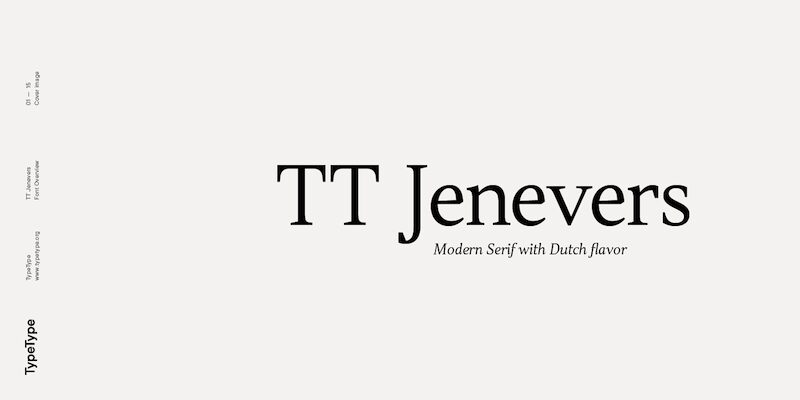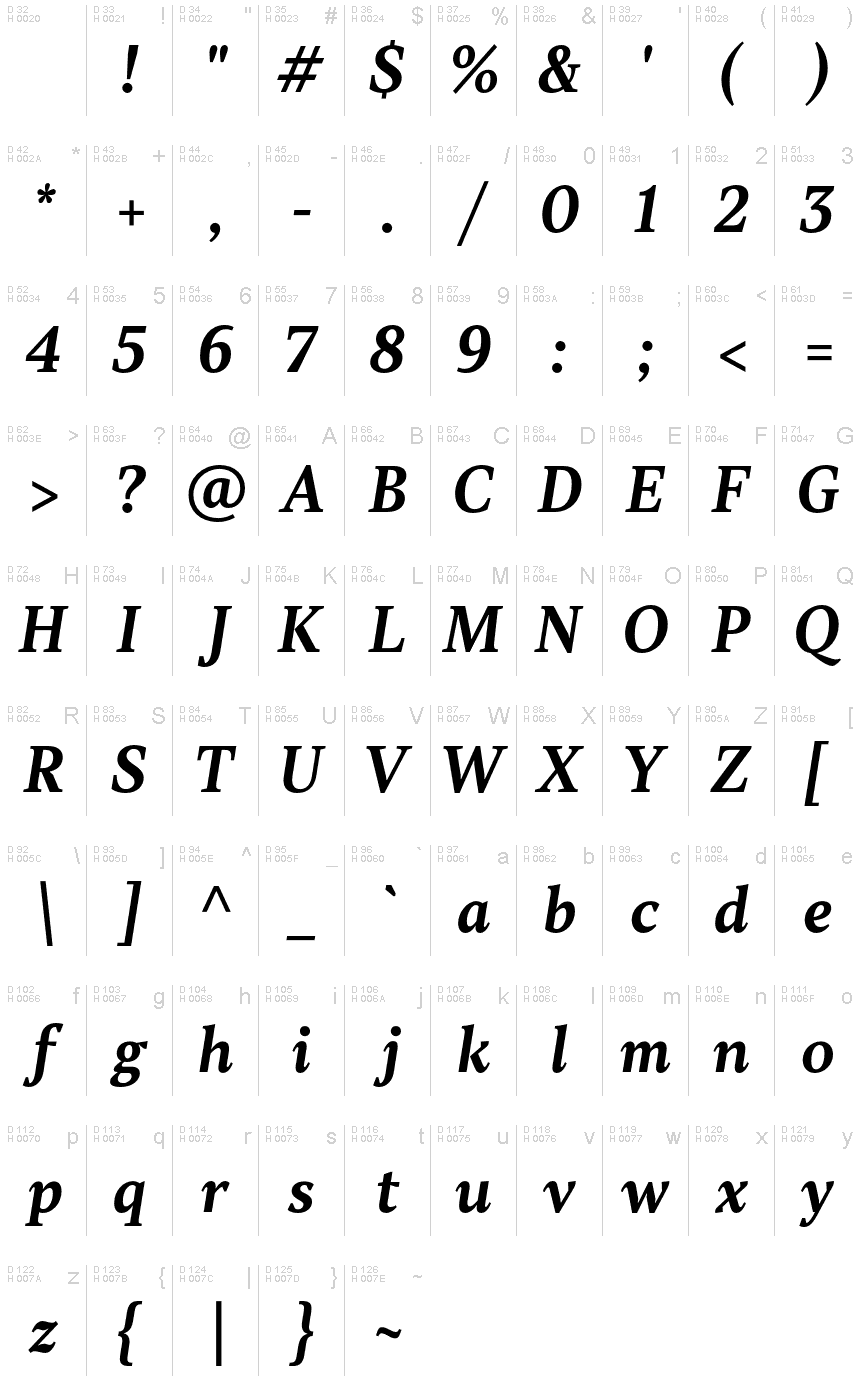
TT Jenevers Trl Bold Italic
TT Jenevers Bold Italic is a stunning serif font that exudes elegance and sophistication. Its bold and italic style adds a touch of drama that makes it suitable for projects such as luxury branding, fashion magazines, and high-end product packaging. This typeface has a sleek, modern look that's perfect for creating eye-catching headlines or stylish logos. The TT Jenevers font family is designed by the talented team at TypeType Foundry, ensuring its quality and uniqueness. With its versatility and beauty, TT Jenevers Bold Italic is sure to elevate any project it's used in to new heights of excellence.
TT Jenevers Trl
Bold Italic